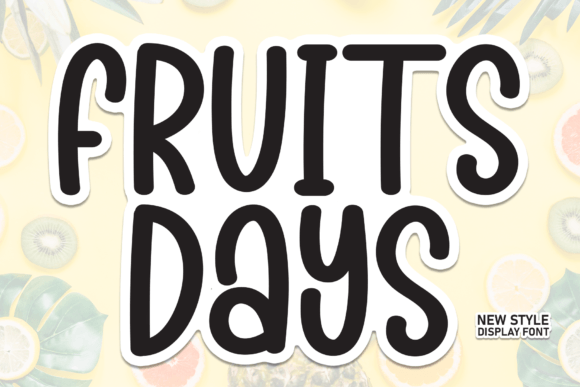
Embark on an artistic voyage with Fruits Days Font, a captivating handwritten font family born from the creative mind of Roronoa Zoro.S.P.D. This font is a masterpiece, meticulously crafted to evoke a sense of playfulness and charm in your designs.
Immerse yourself in the whimsical world of Fruits Days, where each letter dances with a unique personality. The font's natural and organic flow lends an irresistible charm to any project, whether you're creating logos, branding, invitations, or social media posts. Its versatility knows no bounds, making it the perfect choice for a diverse range of creative endeavors.
With Fruits Days Font, your designs will blossom with a touch of delight and individuality. Its playful curves and charming imperfections add a personal touch that captures the essence of handwritten artistry. Unleash your creativity and let Fruits Days take your designs to new heights, leaving a lasting impression on your audience.
Journey through a spectrum of emotions with Fruits Days Font. Its sweet and friendly demeanor invites warmth and positivity into your designs, while its playful nature adds a touch of whimsy and lightheartedness. Whether you're aiming for a cheerful and inviting tone or a touch of playful elegance, Fruits Days Font effortlessly adapts to your creative vision.
Take the plunge into a world of artistic expression with Fruits Days Font. Its captivating charm and boundless versatility make it the perfect companion for your creative projects. Let your imagination run wild and explore the endless possibilities that await you with this enchanting font.